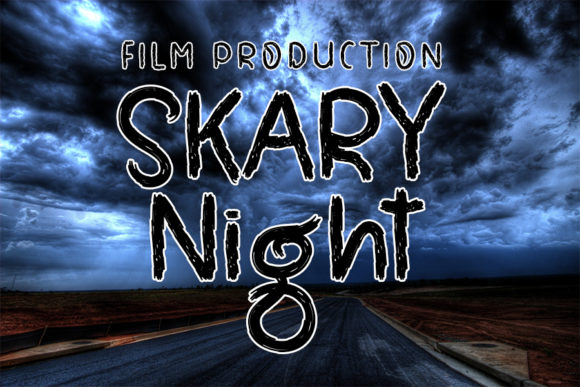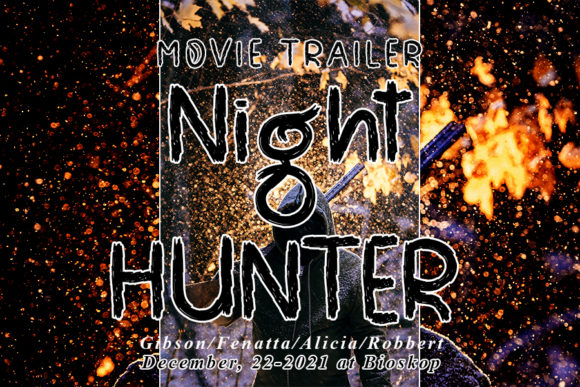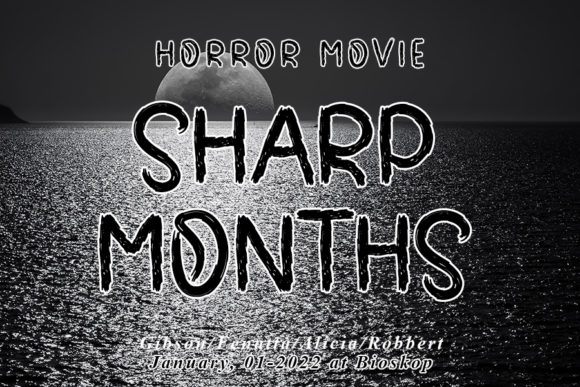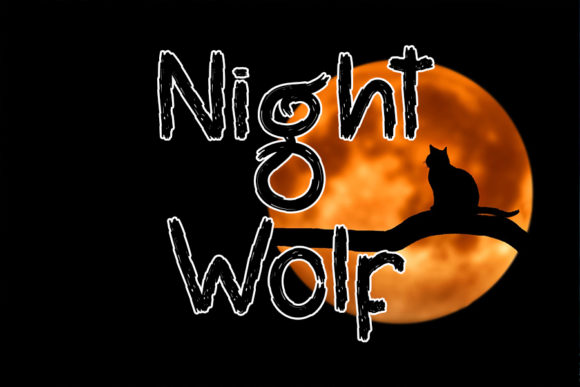
The Hunt for the Perfect Font: Discovering Beautiful Hunter
I’ll never forget the design project that led me to Beautiful Hunter, a bold, spooky, and chunky lettered display font. I was working on a Halloween-themed branding project for a client, and I was struggling to find the right font to capture the eerie yet playful vibe they wanted. That’s when I stumbled upon Beautiful Hunter, and it was love at first sight! ✨
An Honest Review of Beautiful Hunter
- 💥 Impactful and attention-grabbing: Beautiful Hunter is a font that demands attention. Its bold and chunky letters make it perfect for display purposes, such as titles, headings, and logos.
- 🎃 Spooky and eerie: The font’s design elements evoke a sense of spookiness, making it ideal for Halloween-themed projects, horror-inspired designs, or any project that requires a touch of eeriness.
- 🤩 Versatile: Despite its bold and chunky nature, Beautiful Hunter can be used in various design contexts, from digital to print, and from playful to serious.
- ✅ Easy to read: Although it’s a bold font, Beautiful Hunter remains surprisingly legible, even at smaller sizes.
While Beautiful Hunter is an excellent font, there are a few things to keep in mind: 🤔
- ⚠️ Not suitable for body text: Due to its bold nature, Beautiful Hunter is not ideal for body text or long paragraphs. It’s best used for titles, headings, or short phrases.
- ⚠️ Limited use of OpenType features: While Beautiful Hunter does offer some OpenType features, such as stylistic alternates, it’s not as extensive as some other fonts.
The Backstory Behind Beautiful Hunter
Beautiful Hunter was designed by a talented font designer who wanted to create a font that would evoke a sense of spookiness and eeriness. The designer drew inspiration from classic horror movies, haunted houses, and creepy abandoned places. The result is a font that’s both bold and eye-catching, yet eerie and unsettling.
Q: What type of projects is Beautiful Hunter best suited for?
A: Beautiful Hunter is best suited for projects that require a bold, spooky, and attention-grabbing font, such as Halloween-themed designs, horror-inspired projects, or any project that requires a touch of eeriness.
Q: Is Beautiful Hunter a difficult font to read?
A: Despite its bold nature, Beautiful Hunter remains surprisingly legible, even at smaller sizes. However, it’s still a bold font, so it’s best used for titles, headings, or short phrases rather than body text.